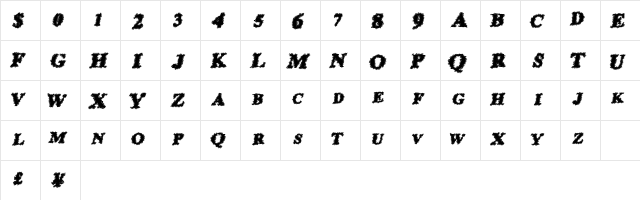
PrisonEscape Regular
Design Context for PrisonEscape Typeface
PrisonEscape is a composed and adaptable typeface that performs quietly and consistently across a wide range of design contexts.